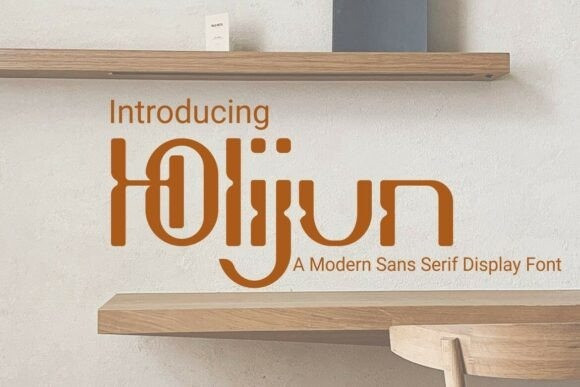
Holijun Font
Designer: Kenrichi
Holijun Font a modern sans-serif display font that redefines clean lines with a unique twist. This Holijun typeface features circular accents and soft, open curves that provide a friendly yet ultra-modern feel. Perfectly suited for tech-forward interior design, luxury lifestyle branding, and innovative startup identities, the Holijun font offers a polished and “of-the-moment” look that is both inviting and sophisticated.
The Jolijun typeface excels in environments where space and light are key, making it a favorite for architectural signage and editorial layouts. Its geometric clarity and unique “u” and “n” structures provide a distinct visual rhythm that sets it apart from standard sans-serifs. Pair the Holijun font with minimalist furniture photography or sleek digital interfaces to create a cohesive and high-end aesthetic that speaks to the future of modern living.